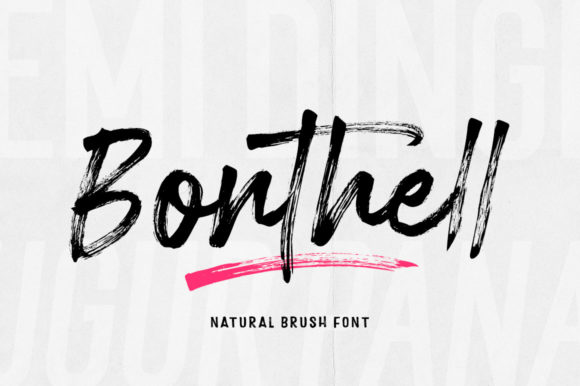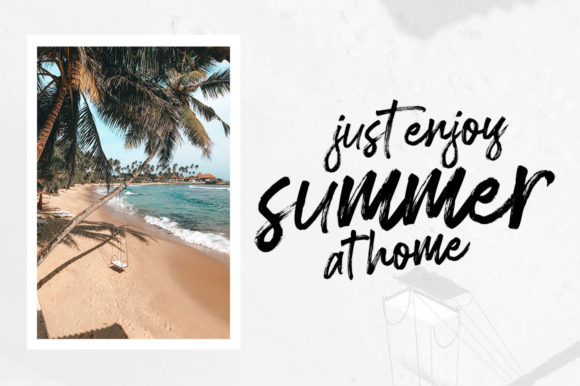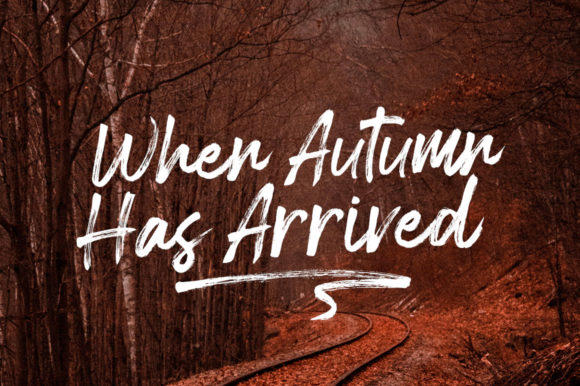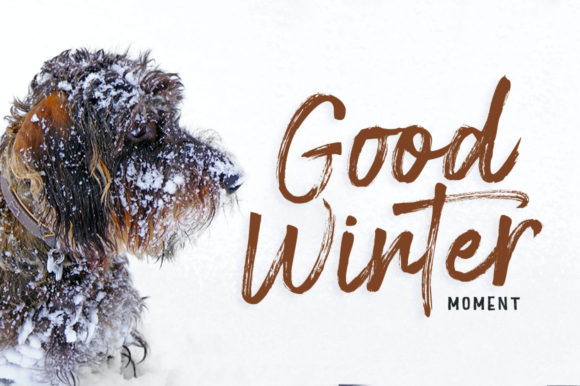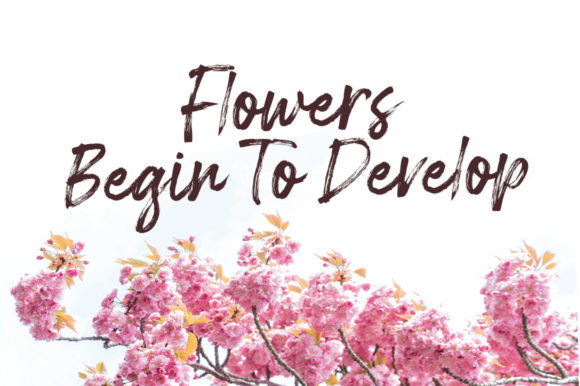
Bonthell Font
About Bonthell Font
Bonthell is an incredibly unique handwritten font, designed with the help of a brush pen. Masterfully designed to become a true favorite, this font has the potential to bring each of your creative ideas to the highest level!